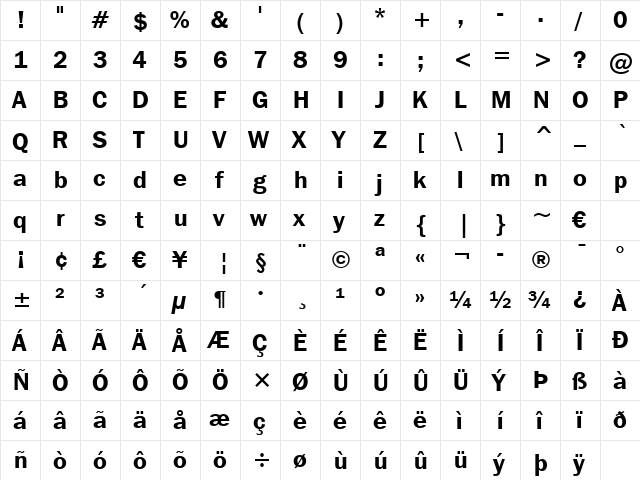
font172 Bold
Design Context for font172 Typeface
font172 takes a measured approach to typography — its balanced proportions and neutral character make it a reliable workhorse for both digital and print work. Its bold stroke weight gives it real presence on the page.